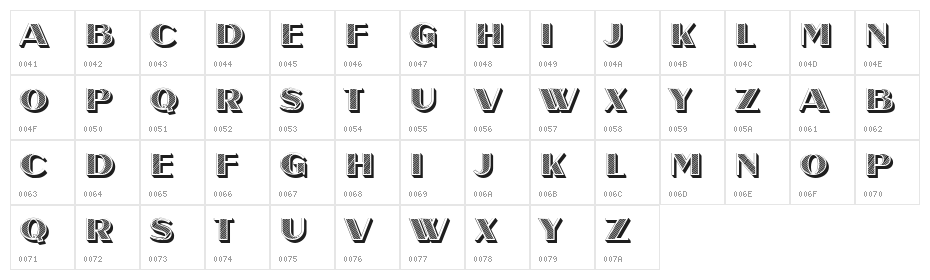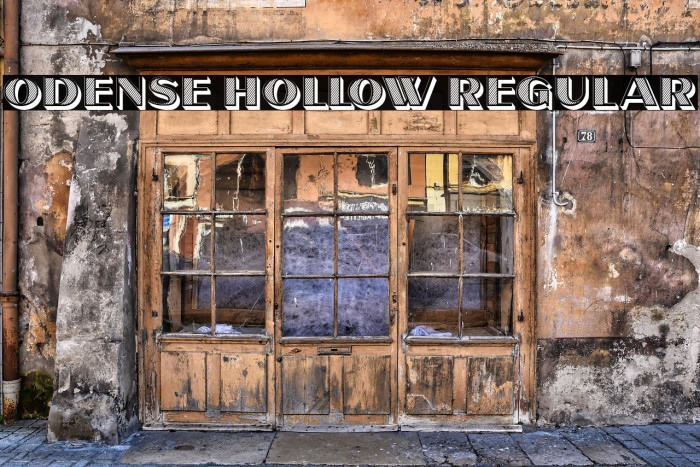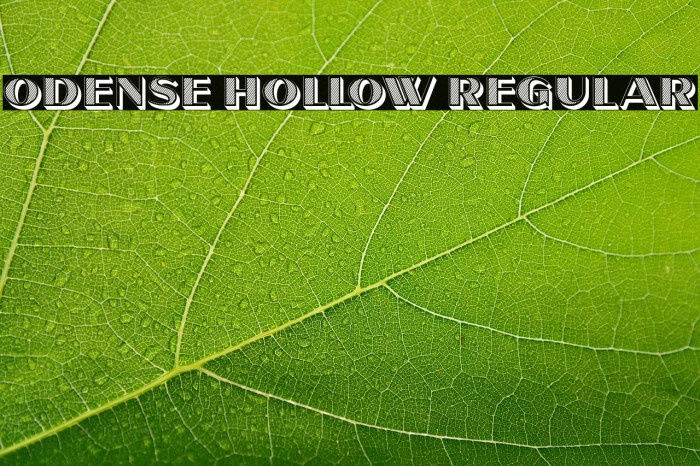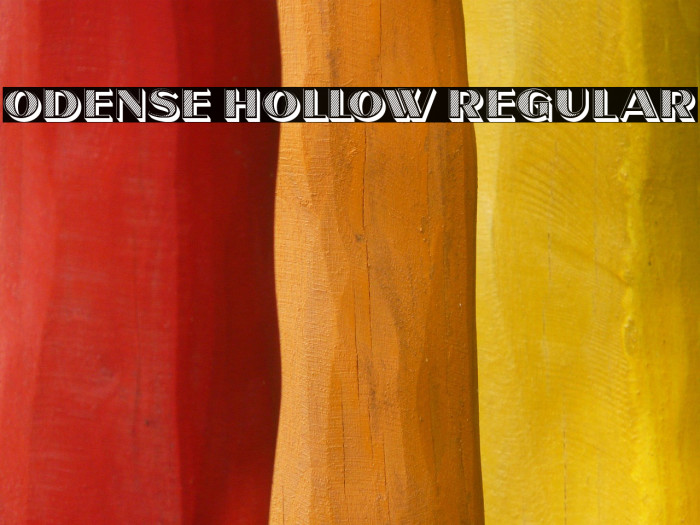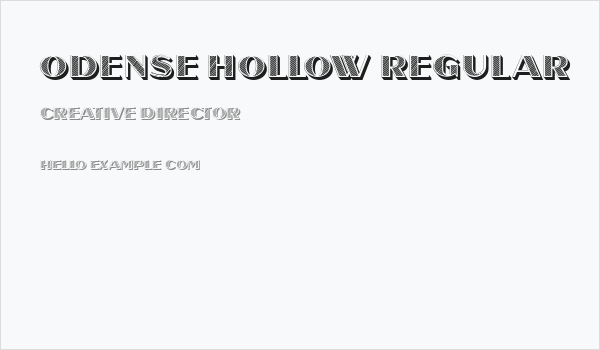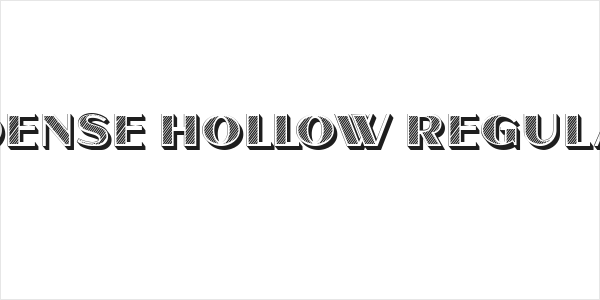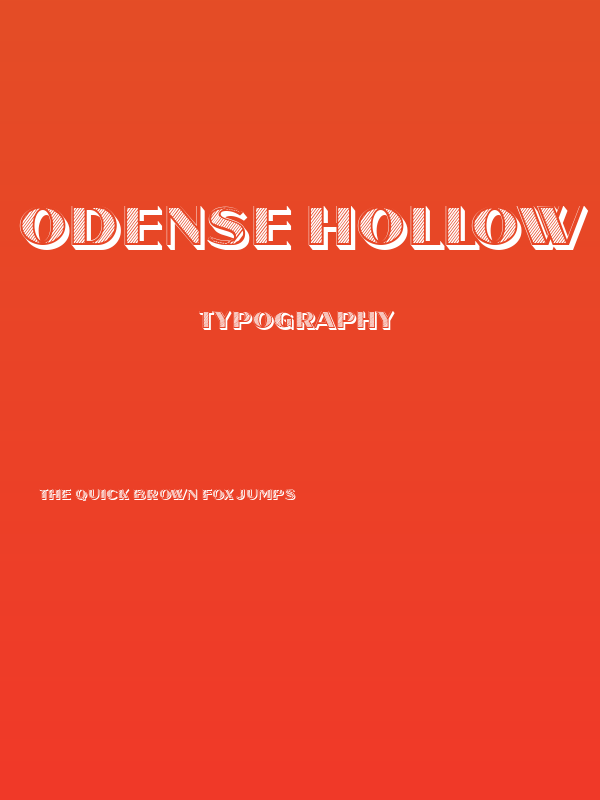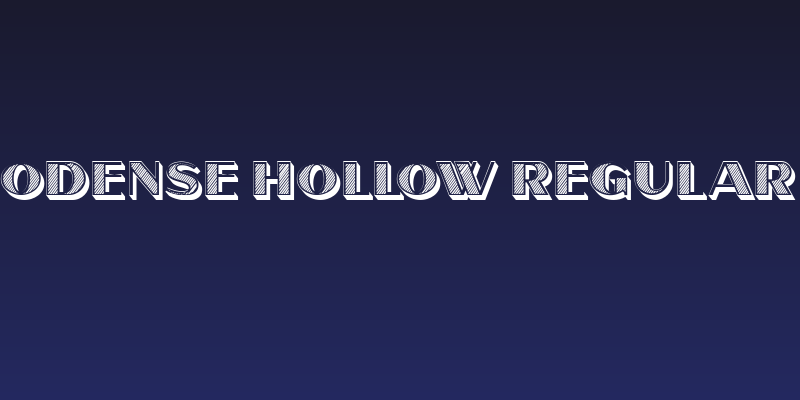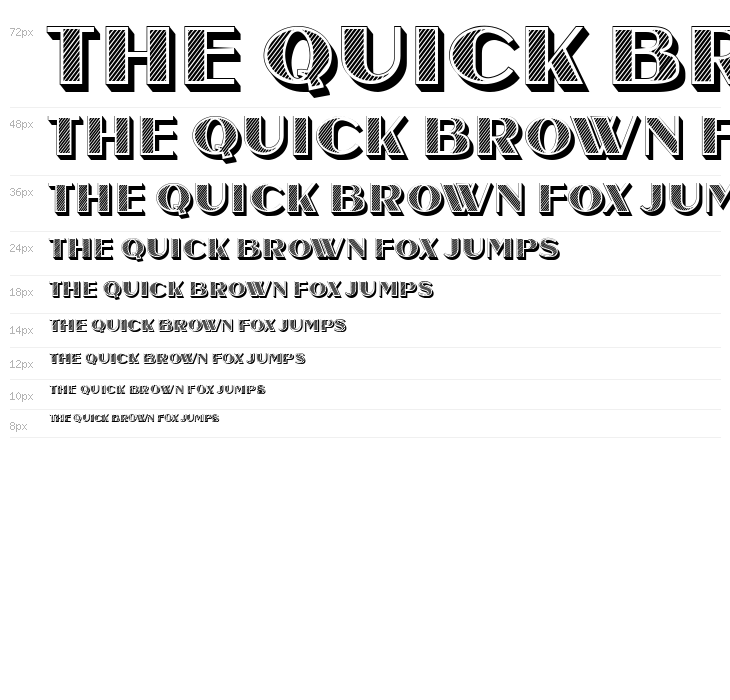
Odense Hollow Regular Font
Odense Hollow Regular Description
This font features a bold and striking design with a hollow interior, creating a unique and eye-catching effect. The letters are capitalized and exhibit a strong, geometric structure with a consistent width throughout. The hollow aspect is accentuated by diagonal lines that fill the interior space, adding a sense of depth and dimension. This font is perfect for making a statement, as it combines both modern and classic elements. The bold outlines ensure high visibility, making it suitable for various display purposes.
| Proposed Projects | Ideal for posters, logos, headlines, and any project requiring a bold and attention-grabbing typeface. |